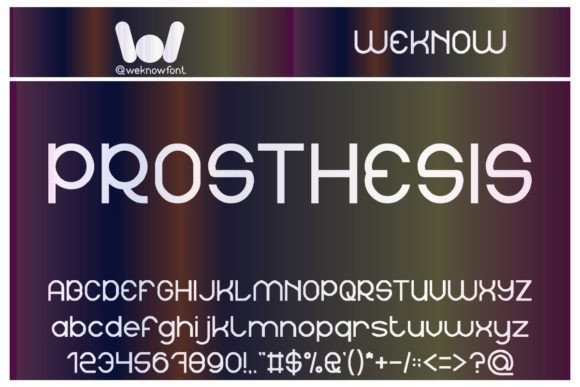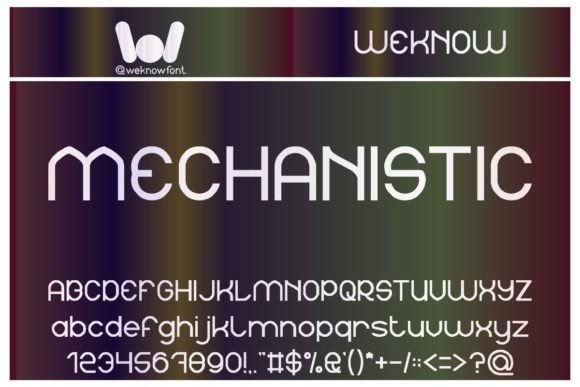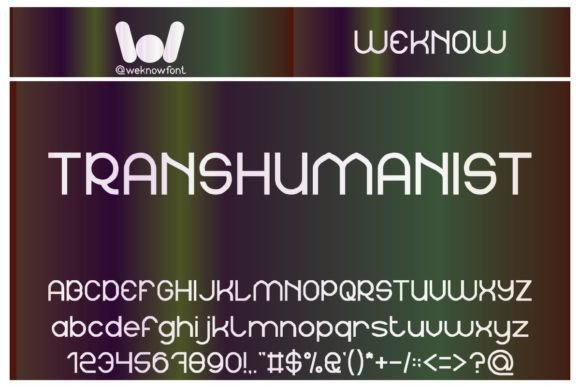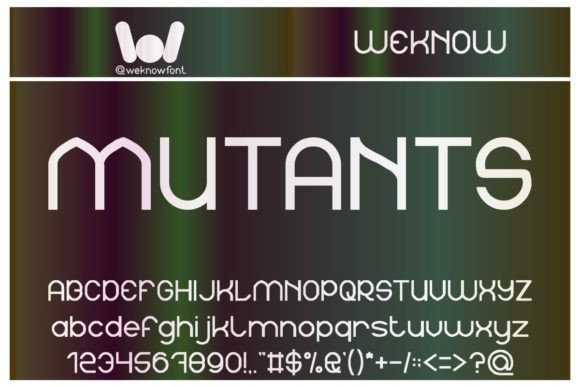
Cyborg Font: Elevate Your Designs with a Futuristic Twist
In the realm of design, typography plays a pivotal role in conveying the essence and aesthetic of a project. For those seeking to infuse their creations with a modern, bold, and futuristic vibe, the Cyborg Font emerges as an exceptional choice. This cool and innovative sans serif font is specifically designed to add a sci-fi touch to your favorite designs, making it a perfect fit for projects that demand a cutting-edge look.
Unleashing the Power of Cyborg Font
Cyborg Font is not just another typeface; it’s an experience. Its sleek lines, futuristic curves, and meticulous attention to detail make it an indispensable tool for designers aiming to push the boundaries of conventional design. Whether you’re working on a branding project, a web design, or crafting a statement piece for your portfolio, Cyborg Font can transform your vision into a captivating reality.
Key Features of Cyborg Font
- Sans Serif Elegance: The clean and crisp sans serif design of Cyborg Font ensures that your text remains clear and readable, even at smaller sizes, making it versatile for a wide range of applications.
- Modern and Bold Aesthetic: With its strong and assertive lines, Cyborg Font brings a boldness to your designs that can’t be ignored. It’s perfect for headings, titles, and any text that needs to stand out.
- Futuristic Appeal: The unique design elements of Cyborg Font give it a distinctly futuristic feel, ideal for projects that require a sci-fi or tech-inspired look.
- Versatility: Cyborg Font is highly versatile, suitable for both digital and print designs. From website headers and mobile app interfaces to posters and merchandise, it adapts seamlessly across different mediums.
Applications of Cyborg Font
The potential applications of Cyborg Font are vast and varied. Here are a few ideas to get you started:
- Branding and Logotypes: Use Cyborg Font to create a memorable brand identity that stands out in the market.
- Web Design: Enhance your website’s aesthetic with a futuristic touch that captivates visitors.
- Print Materials: From brochures and flyers to posters and business cards, add a modern edge to your print designs.
- Merchandise: Create eye-catching apparel, accessories, and gadgets that reflect a bold and innovative spirit.
Tips for Using Cyborg Font Effectively
To maximize the impact of Cyborg Font in your designs, consider the following tips:
- Mix and Match: Combine Cyborg Font with complementary typefaces to create visual interest and hierarchy.
- Play with Sizes: Utilize different font sizes to emphasize certain parts of your text and create a dynamic layout.
- Experiment with Colors: While Cyborg Font looks striking in bold colors, don’t hesitate to experiment with gradients, metallic effects, or subtle color variations.
Cyborg Font is more than just a typeface; it’s a design statement. With its futuristic appeal, bold aesthetic, and versatility, it offers designers and crafters a powerful tool to elevate their projects. Whether you’re aiming to create a sci-fi inspired masterpiece or simply want to add a modern twist to your designs, Cyborg Font is an excellent choice. Embrace the future of design with Cyborg Font and watch your creations come to life with a bold, innovative spirit.